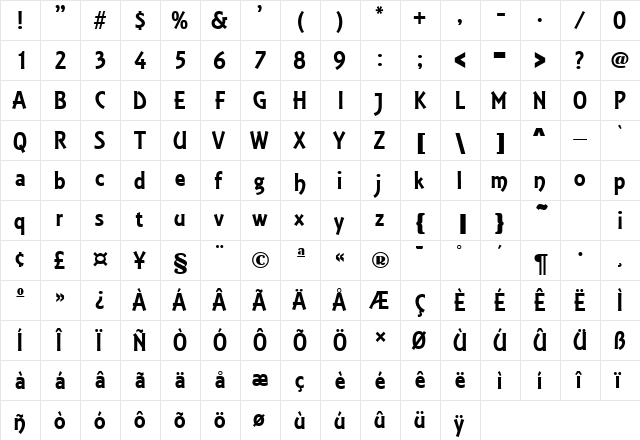
Estelle Black SF Regular
Design Context for Estelle Black SF Typeface
Estelle Black SF offers clean, dependable letterforms without strong stylistic allegiance, making it a practical choice for designers who need flexibility.